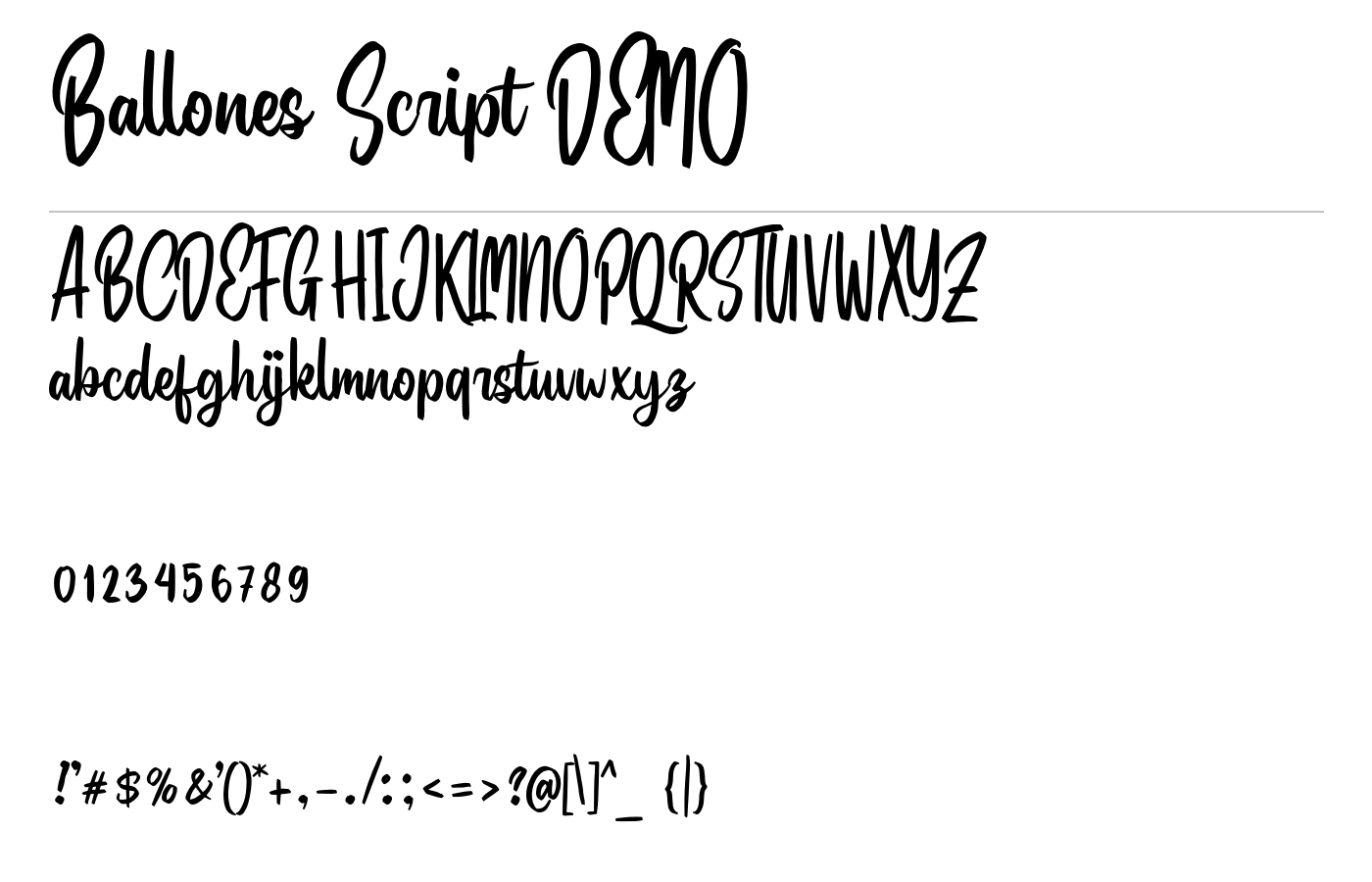
Ballones Script DEMO is a playful and casual script font characterized by its lively, hand-drawn style with tall, narrow letterforms and smooth, flowing strokes. Its slightly irregular shapes and energetic appearance make it ideal for creative projects, branding, and headlines where a friendly and informal tone is desired. This font works well for social media graphics, invitations, and packaging that aim to convey warmth and personality.
Ballones Script DEMO Font